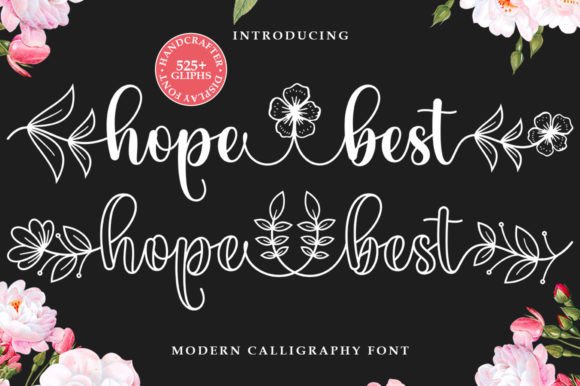
Behold the captivating charm of Hope Best Font, a script font designed to weave a tapestry of elegance and sophistication into your creative endeavors. Immerse yourself in the world of expressive typography as this font transforms your designs with its gracefully flowing letters. As you unleash your imagination, Hope Best Font will effortlessly elevate the visual appeal of your projects, adding a touch of magic to every word and phrase.
Let your creativity soar as you explore the boundless possibilities that await with Hope Best Font. Its gentle and romantic curves impart a sense of joy and playfulness, inviting your audience to engage with your content on a deeper level. Whether you're designing logos, crafting invitations, or creating social media posts, this font will leave a lasting impression that resonates with hearts and minds.
Imagine the awe-inspiring beauty of Hope Best Font adorning the screen of a television display. Its meticulously crafted characters, each a masterpiece of digital artistry, will captivate viewers with their enchanting allure. The font's inherent elegance and charm will elevate your message, transforming it into an unforgettable visual experience that commands attention and leaves a lasting impact.
With Hope Best Font, you hold the key to unlocking a world of creative possibilities. Let your imagination roam free as you explore the endless combinations of colors, styles, and compositions that this font offers. From delicate wedding invitations to bold and dynamic marketing materials, Hope Best Font will become your trusted companion, transforming your creative visions into tangible works of art.